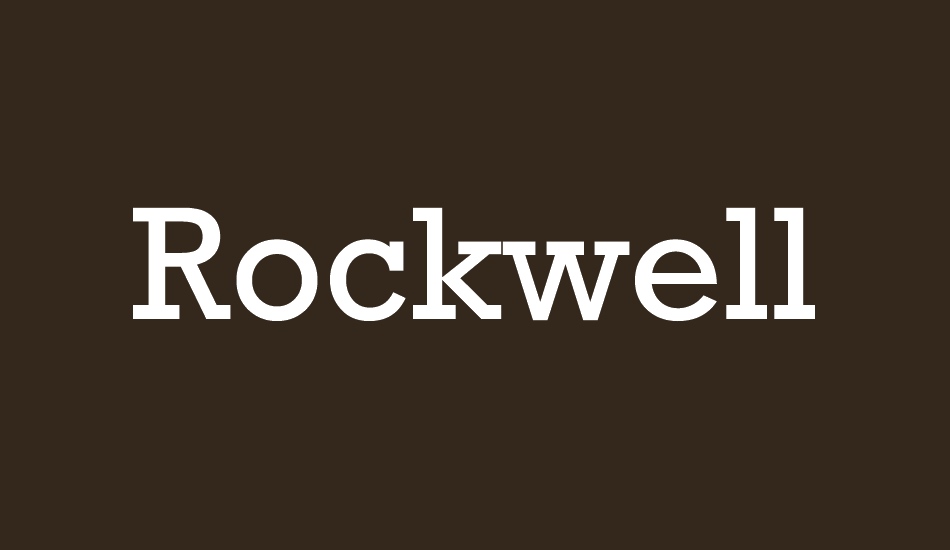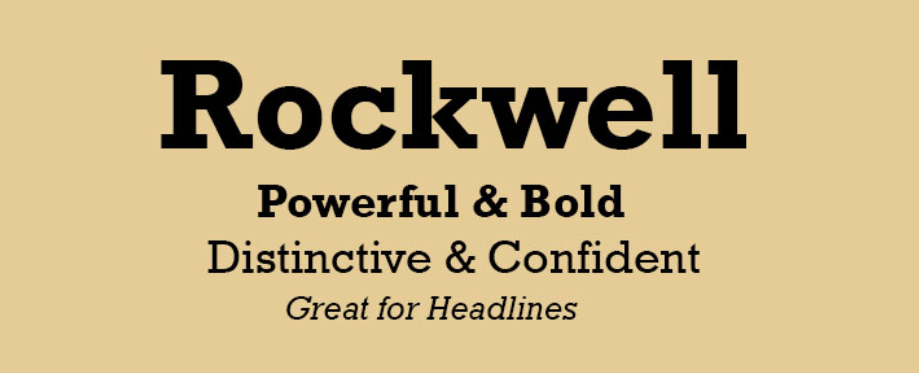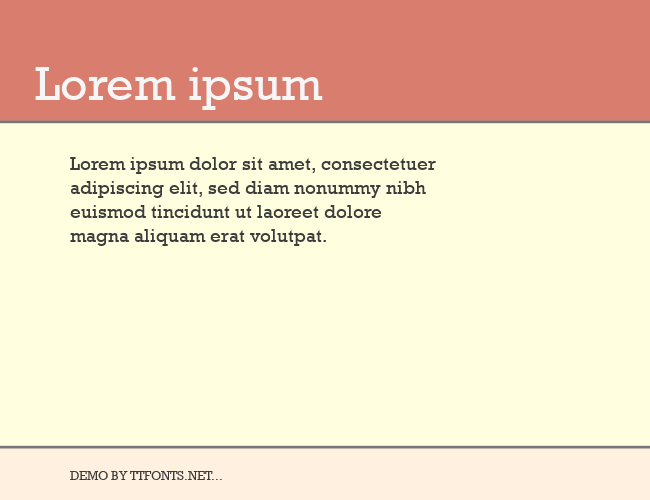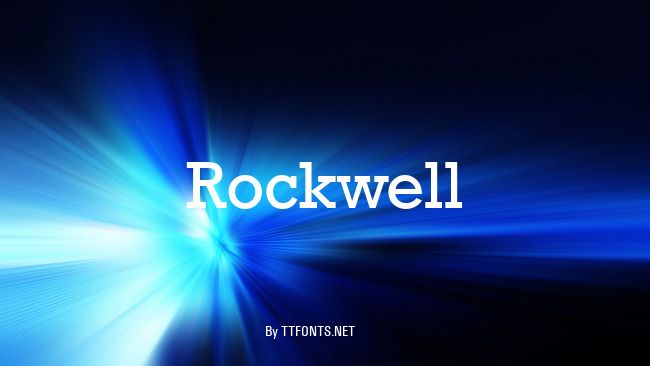
Rockwell regular font. That is a layout that is each robust and adaptable. Rockwell regular font search resultsfontke for you to share rockwell regular resourcesprovide font downloadfont uploadfont identificationfont conversionfont previewfont generationfont design samplefont information and other services. Onlinewebfontscom is internet most popular font online download websiteoffers more than 8000000 desktop and web font products for you to preview and download. Rockwell font may be used for branding headlines and different show functions.